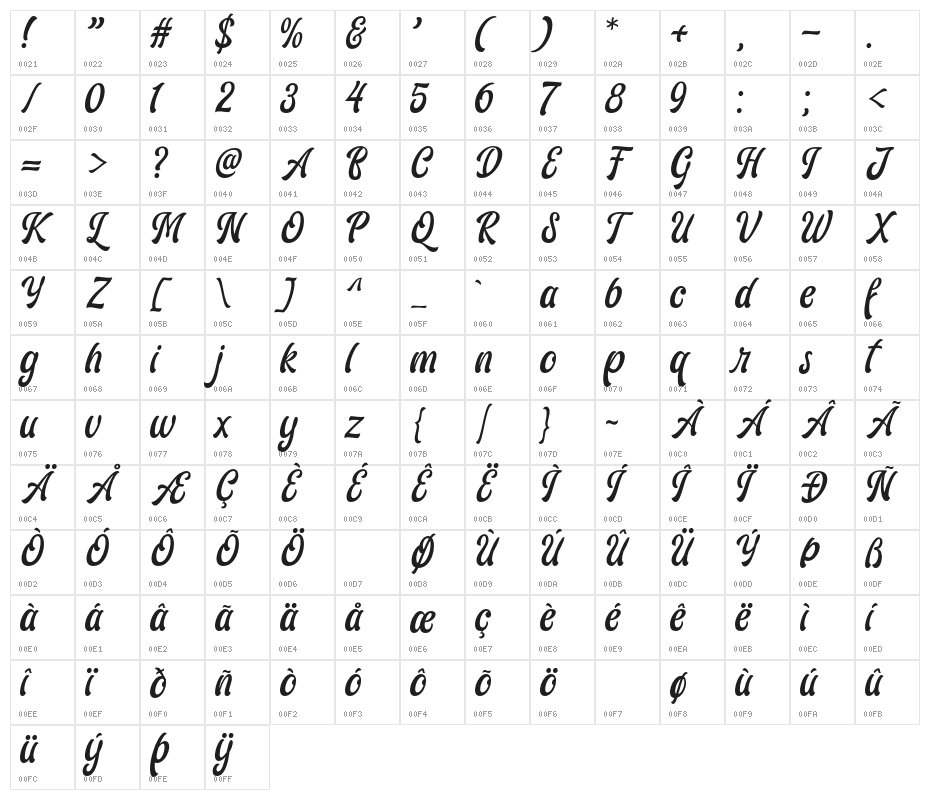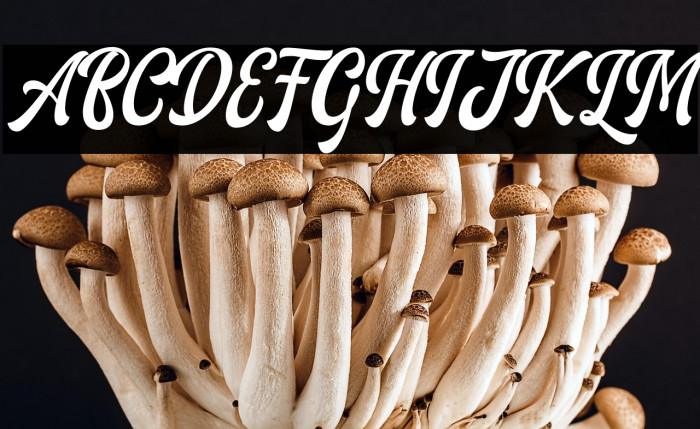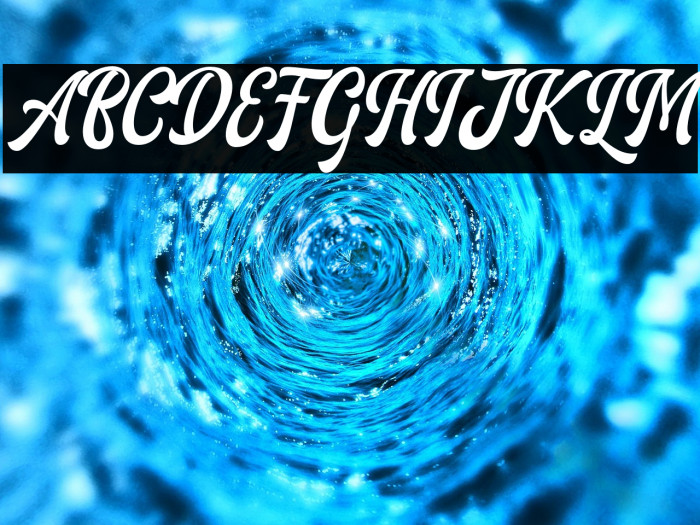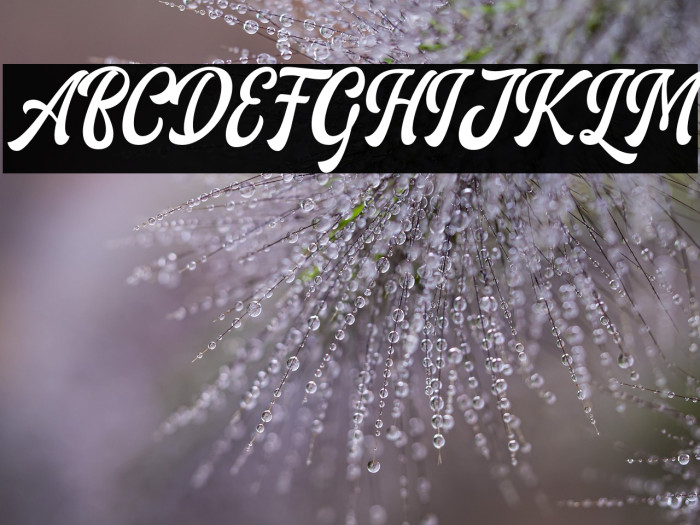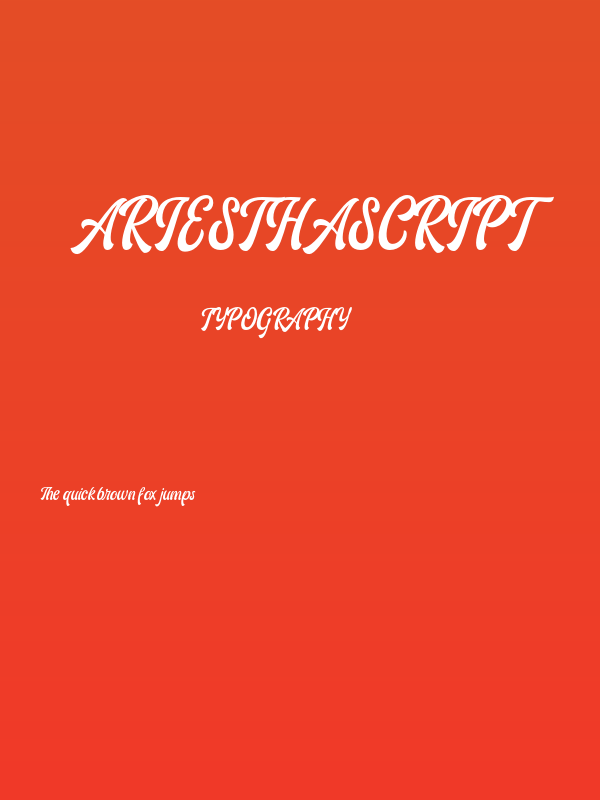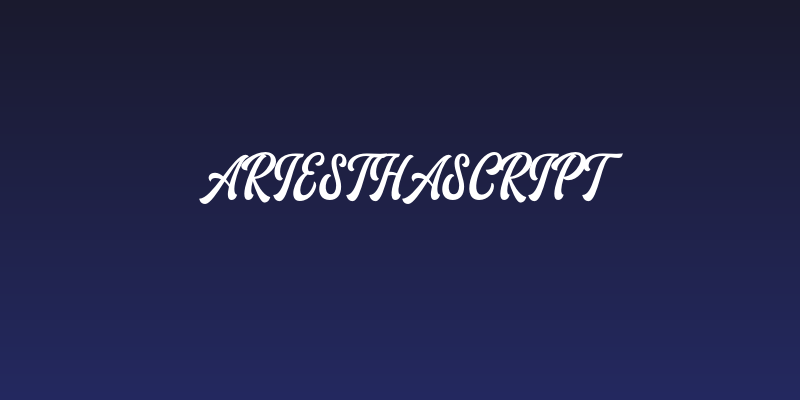
AriesthaScript Font
AriesthaScript Description
This font features a flowing, cursive style with elegant loops and swashes that give it a sophisticated and artistic appearance. The uppercase letters are bold and sweeping, while the lowercase letters maintain a consistent fluidity, enhancing the script's overall cohesion. The numerals are designed with a similar flair, ensuring they blend seamlessly with the alphabetic characters. Special characters are crafted with attention to detail, maintaining the font's graceful aesthetic. This script is ideal for projects that require a touch of elegance and creativity.
| Overall Style | Elegant, Artistic |
| Use Case | Logos, Invitations, Decorative text |
| Proposed Projects | Ideal for wedding invitations, greeting cards, branding, and elegant logo designs. |